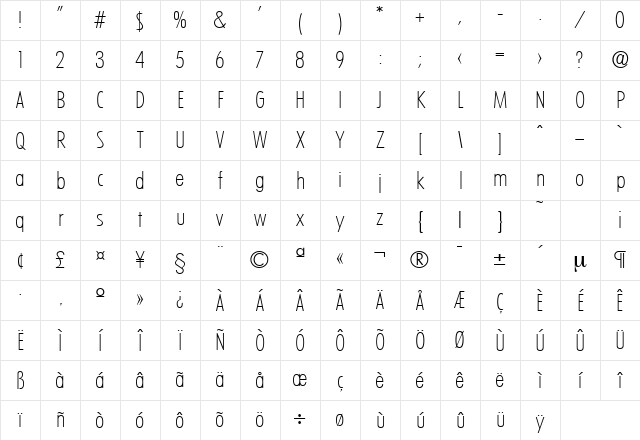
LimerickCond-Serial-ExtraLight Regular Free Font
LimerickCond-Serial-ExtraLight Regular
Design Context for LimerickCond-Serial-ExtraLight
LimerickCond-Serial-ExtraLight is a composed and adaptable typeface that performs quietly and consistently across a wide range of design contexts. Its slender proportions lend an understated elegance to any composition. Its narrow stance lets it pack a punch even in space-constrained designs.